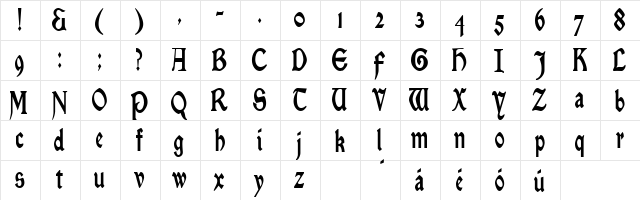
EnchantmentCondensed Regular
Design Context for EnchantmentCondensed Typeface
EnchantmentCondensed is a composed and adaptable typeface that performs quietly and consistently across a wide range of design contexts. The condensed width makes it efficient for tight spaces without sacrificing legibility.